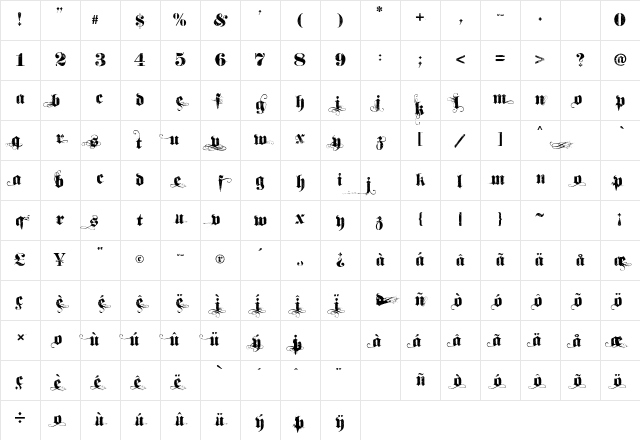
Dirt2 SoulStalker Free Font
Dirt2 SoulStalker Dirt2 SoulStalker
Style: Dirt2 SoulStalker
Design Context for Dirt2 SoulStalker
Dirt2 SoulStalker is a composed and adaptable typeface that performs quietly and consistently across a wide range of design contexts.